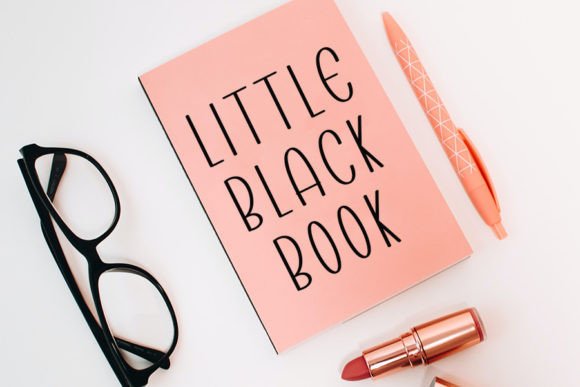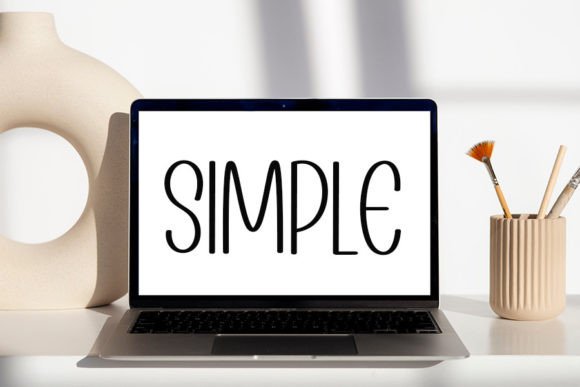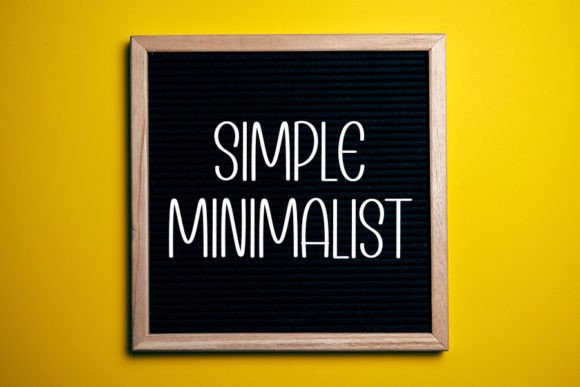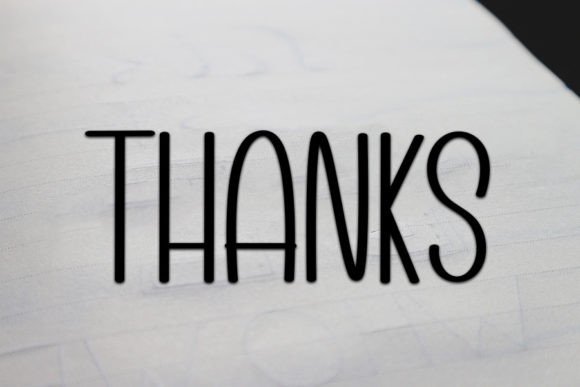
Introducing Balance Font: Elevate Your Designs with Elegance
Are you on the hunt for a font that exudes sophistication and style? Look no further than Balance Font, a stunning handwritten font that is sure to capture your heart. With its elegant touch and timeless appeal, Balance Font is the perfect addition to your design arsenal.
The Beauty of Balance Font
Balance Font is a neat and beautiful handwritten font that boasts an incredibly distinct style. Its elegant touch is perfect for a wide range of projects, from creative crafts to professional designs. Whether you’re looking to create a stunning logo, a beautiful poster, or a captivating social media graphic, Balance Font is the ideal choice.
What Sets Balance Font Apart
So, what makes Balance Font so special? Here are just a few features that set it apart from the rest:
- Elegant and Refined: Balance Font features a sophisticated and refined design that is sure to impress. Its elegant touch adds a touch of luxury to any project.
- Timeless Appeal: Unlike trendy fonts that quickly go out of style, Balance Font has a timeless appeal that will remain relevant for years to come.
- Versatile: Balance Font is incredibly versatile and can be used for a wide range of projects, from digital designs to print materials.
- Easy to Read: Despite its elegant design, Balance Font is easy to read and understand, making it perfect for body text and captions.
Balance Font is a dream come true for designers and crafters. Its unique and stylish design makes it perfect for a wide range of creative projects, including:
- Logos and Branding: Create a stunning logo that showcases your brand’s personality and style.
- Posters and Flyers: Design eye-catching posters and flyers that grab attention and communicate your message.
- Social Media Graphics: Create captivating social media graphics that stand out from the crowd.
- Stationery and Invitations: Add a touch of elegance to your stationery and invitations.
Tips for Using Balance Font
- Use for Headings and Titles: Balance Font is perfect for headings and titles, where its elegant design can really shine.
- Experiment with Colors: Balance Font looks great in a wide range of colors, so don’t be afraid to experiment and find the perfect hue for your project.
In conclusion, Balance Font is a stunning handwritten font that is sure to elevate your designs to the next level. With its elegant touch, timeless appeal, and versatility, it’s the perfect addition to your design arsenal. Whether you’re a designer, crafter, or simply someone who appreciates beautiful typography, Balance Font is a must-have font that is sure to inspire.